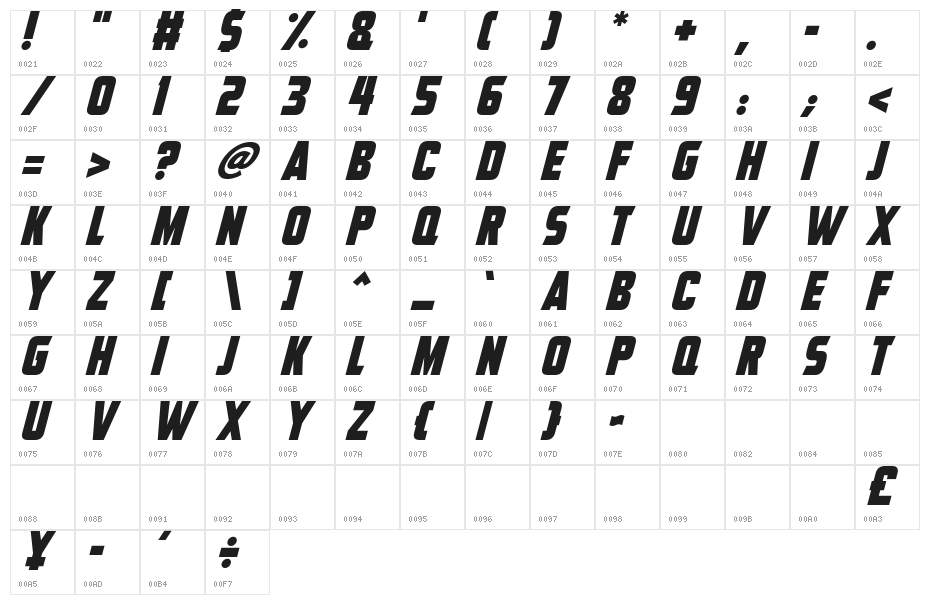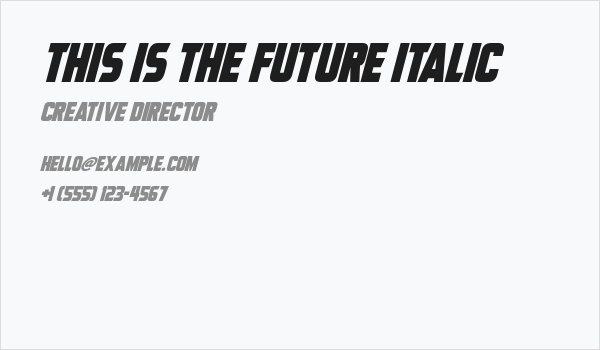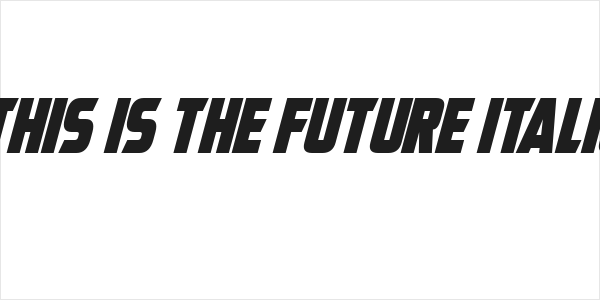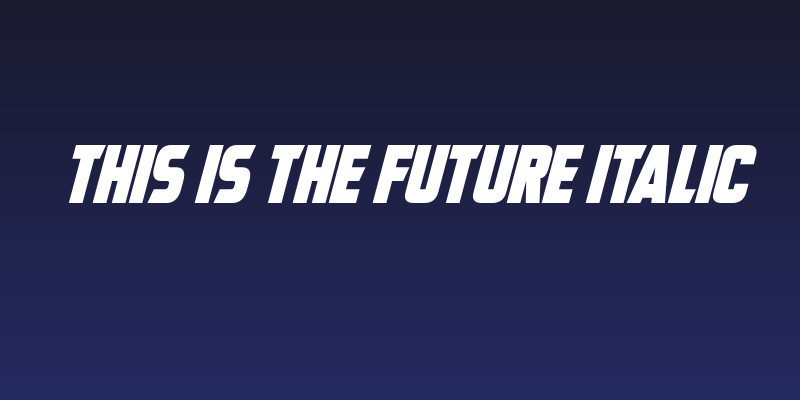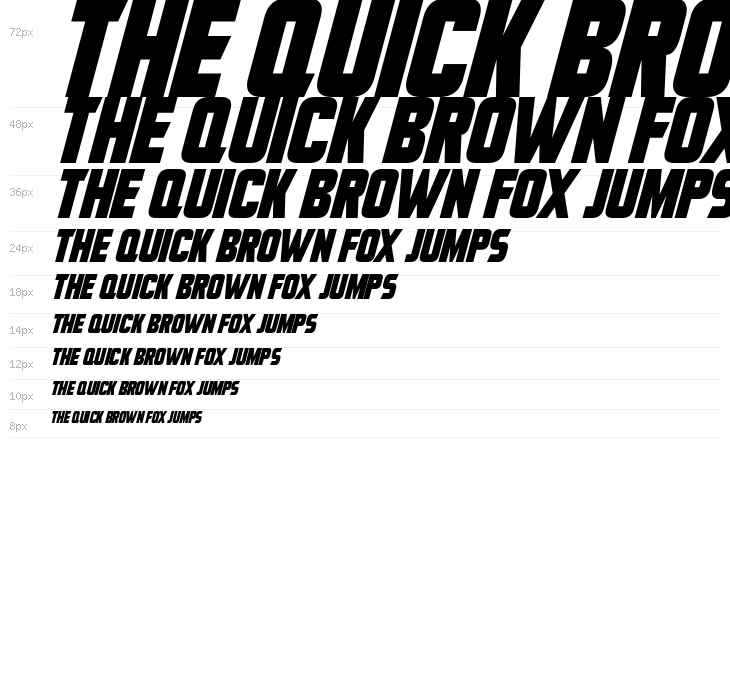
This Is The Future Italic Font
This Is The Future Italic Description
This font features a bold and dynamic style with an italic slant, giving it a sense of movement and energy. The characters are robust and impactful, with a strong presence that commands attention. The strokes are thick and consistent, contributing to a high contrast appearance. The design is modern and sleek, suitable for projects that require a futuristic or cutting-edge look. The uppercase and lowercase letters maintain a uniform width, enhancing readability while preserving the font's bold character. The numbers and special characters are equally bold, ensuring consistency across all elements.
| Proposed Projects | Ideal for branding, sports team logos, event posters, and futuristic designs. |